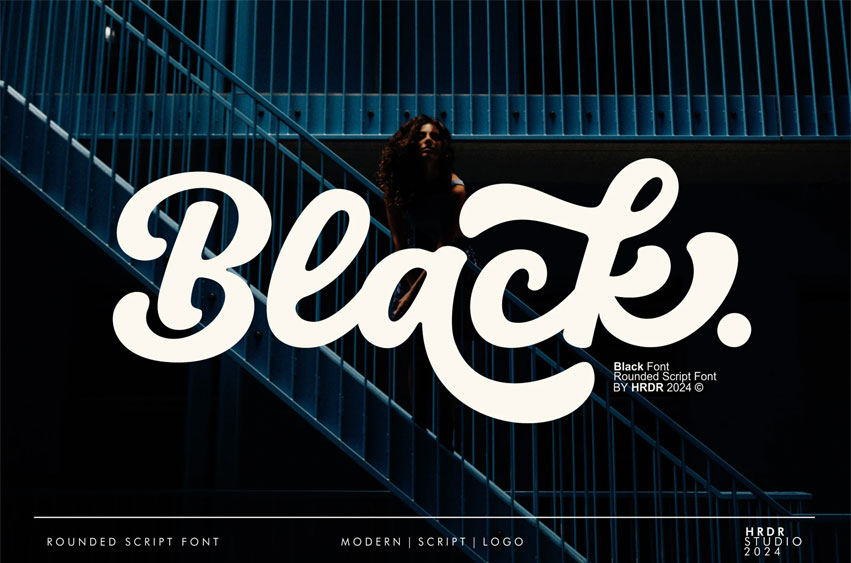
Black Rounded Font is a bold and curvy script font that evokes a sense of retro and elegant charm. Perfect for eye-catching headlines, artistic logos, creative branding, and playful posters, its handwritten style adds a personal and expressive touch to any design project. Ideal for designers looking to create a fun and unique impression.